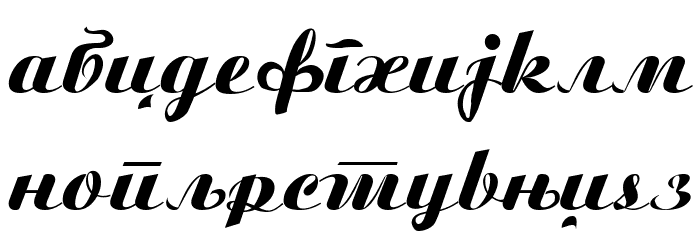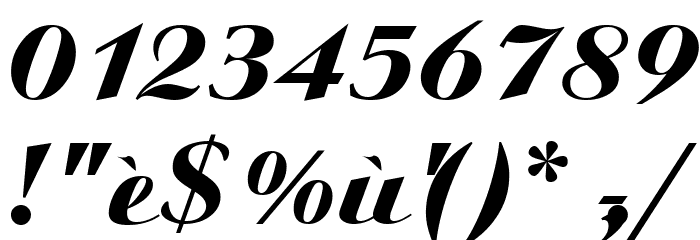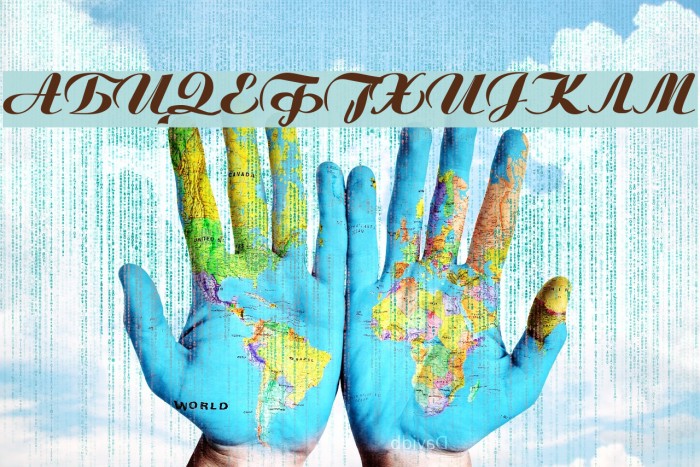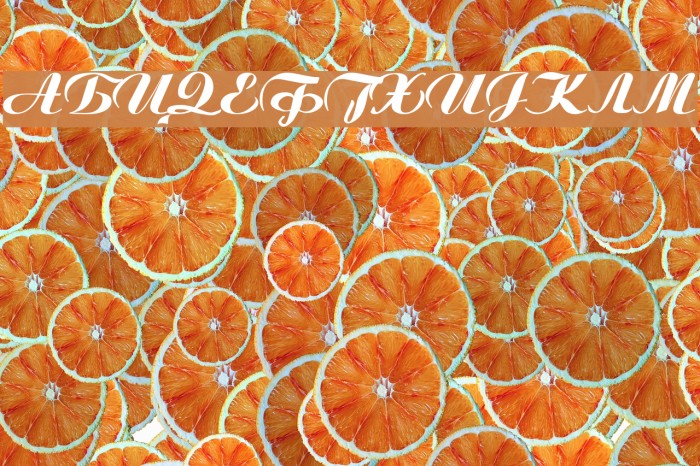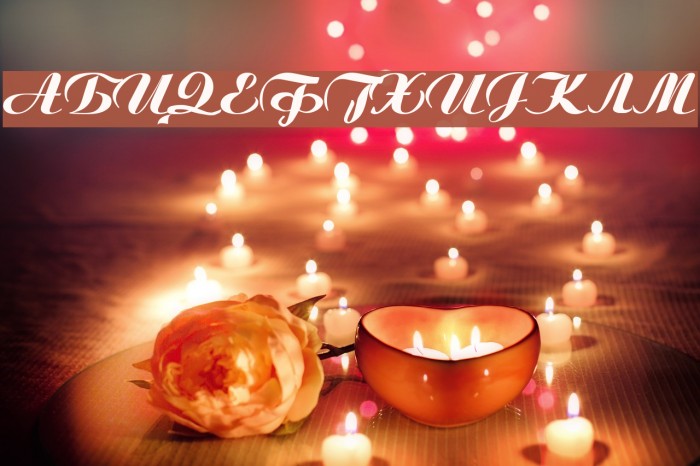
Macedonian Ariston Font
This font features a sophisticated and elegant script style, characterized by its flowing, cursive letterforms. The uppercase letters are bold and sweeping, with dramatic flourishes and a sense of movement. The lowercase letters maintain a consistent style, offering a harmonious blend of curves and loops that enhance readability while maintaining an artistic flair. The numerals are equally stylized, with distinctive shapes that complement the overall aesthetic. Special characters are designed with the same attention to detail, ensuring a cohesive look across all glyphs. This font exudes a sense of luxury and refinement, making it ideal for projects that require a touch of elegance.
An elegant script font with flowing, cursive letterforms and bold flourishes.
- Proposed Projects: Ideal for wedding invitations, luxury branding, elegant signage, and high-end product packaging.
- Overall Style: Elegant
- Use Case: Logos, Invitations, Branding